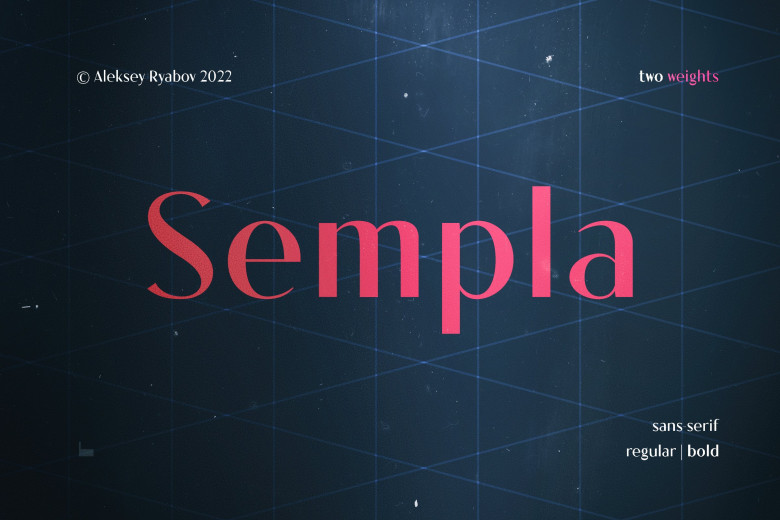
Sempla Font
Sempla is a simple lines and elegant sans-serif font perfect for all your needs in personalized style wedding invitations, thank you cards, greeting cards and logos etc.
Sempla Sans Serif Font